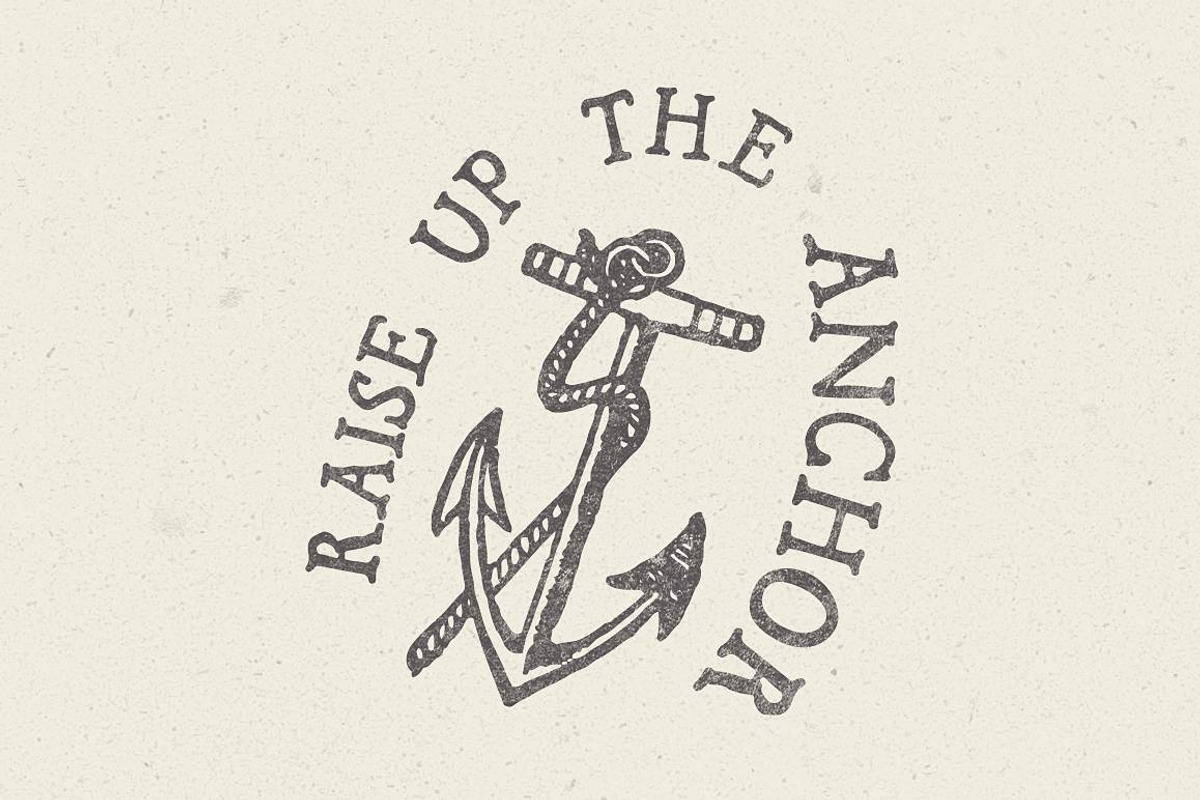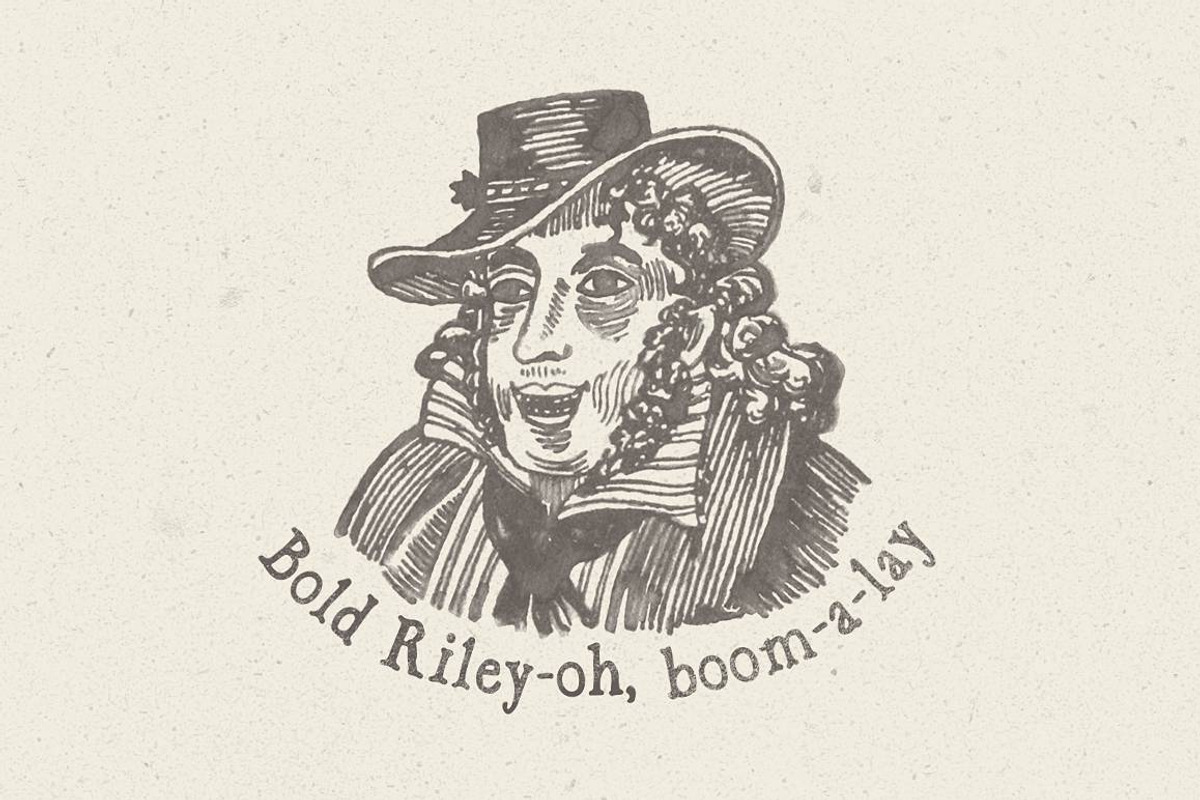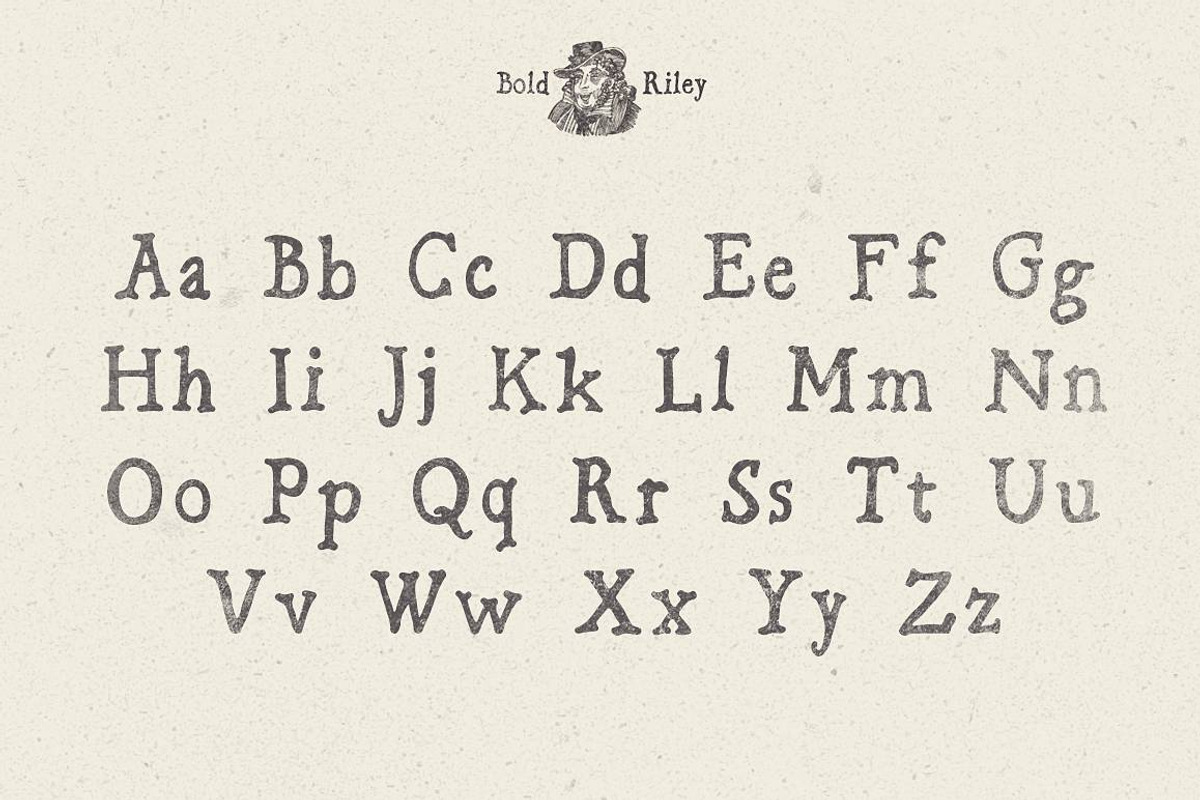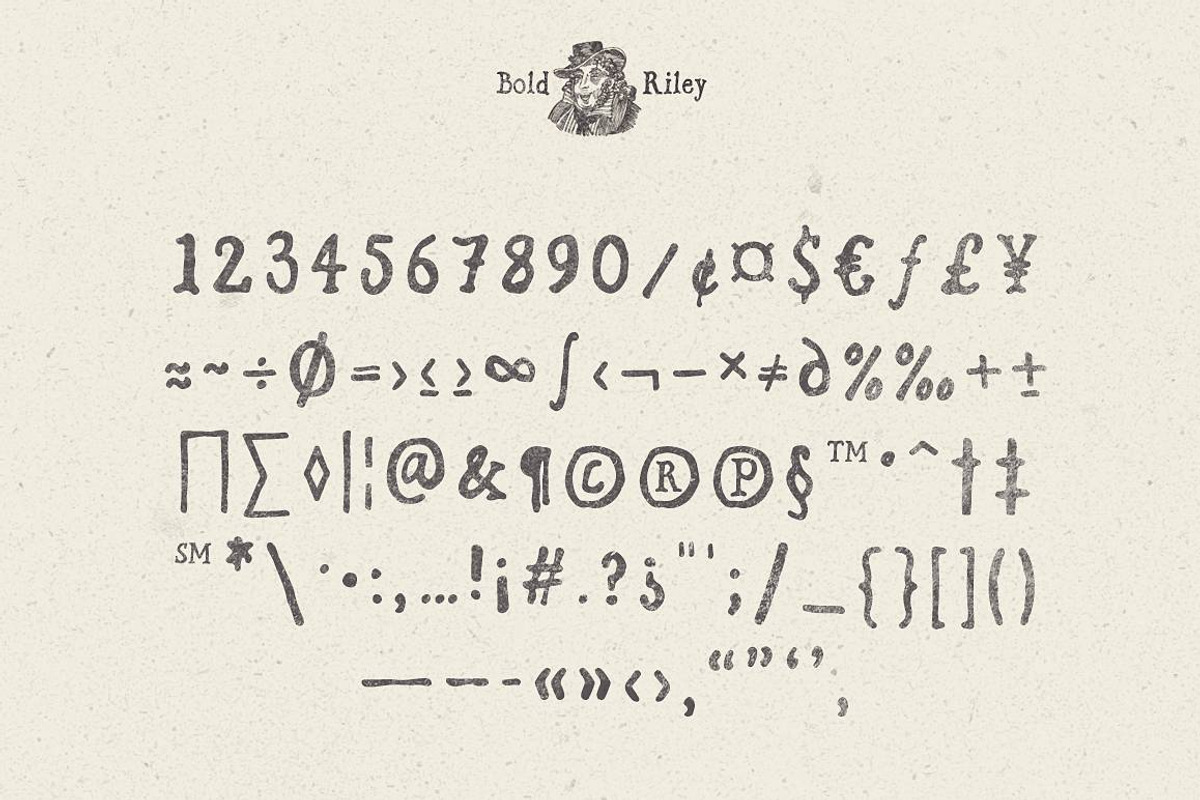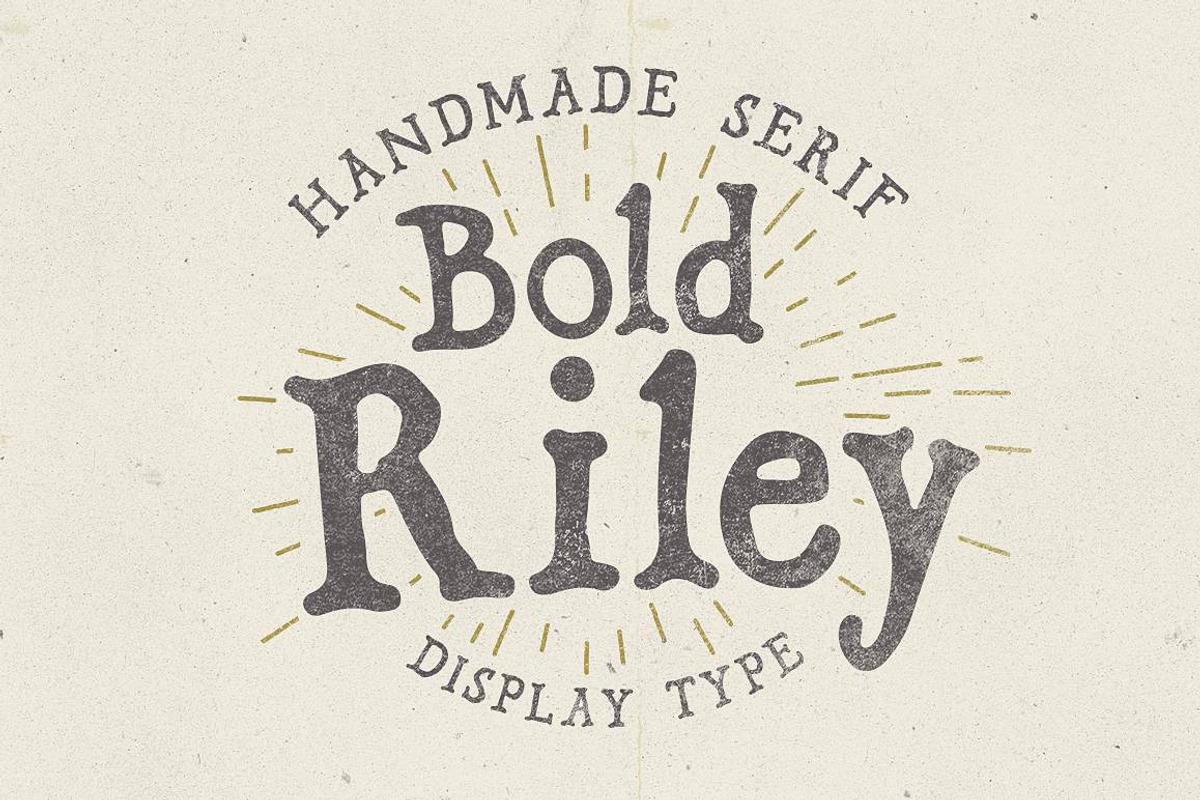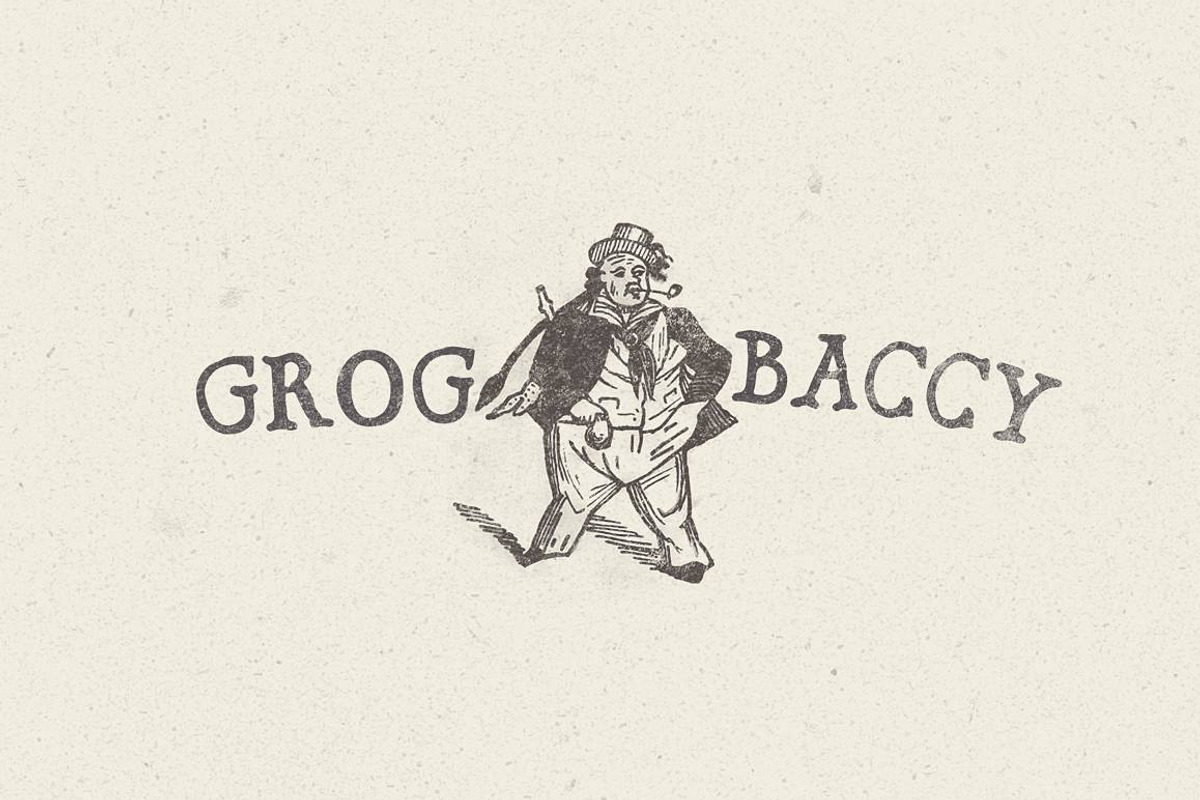
Serif font Bold Riley display type
Bold Riley a handmade serif display typeface, with a sailor pirate twist.
Each and every character was drawn by hand, that gives it a more human touch.
The pen and ink give the lines a wobbly, kind of grunge feeling. That makes it look aged—like a good vintage port or grog as a Pirate might say.
If this typeface was a celebrity it would be more Jack Sparrow than James Dean. Don't get me wrong, it's still a bit of a Rebel.
Font usage
With its friendly but rough hand-lettered look Bold Riley is ideal for packaging, invitations, cards, logos and anything where you want a handmade feeling.
- Uppercase and lowercase letters
- Western, Central and South-Eastern European characters